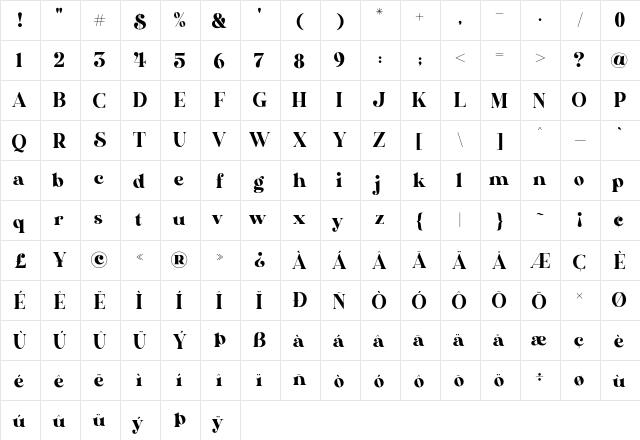
Nevrada Neue
Design Context for Nevrada Neue Typeface
Nevrada Neue is a composed and adaptable typeface that performs quietly and consistently across a wide range of design contexts.